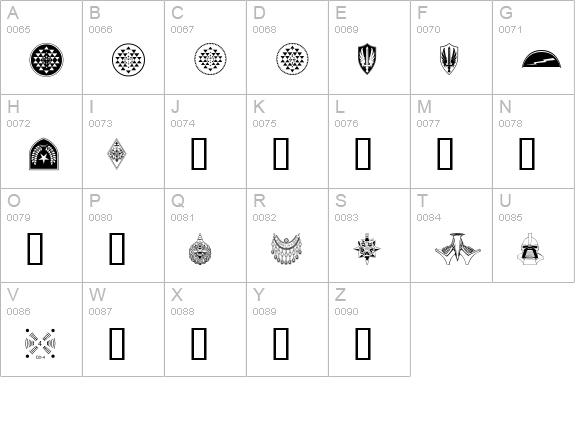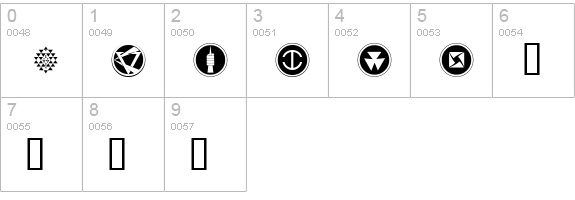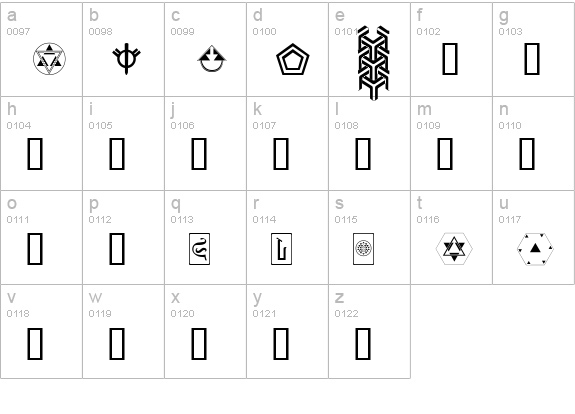
GalacticaBats Font Details
Introducing GalacticaBats, a mesmerizing and futuristic font that will transport you to the outer reaches of the galaxy! This font is truly out of this world with its sleek lines, sharp edges, and captivating design. Created with a blend of modern aesthetics and cosmic inspiration, GalacticaBats is the perfect choice for any project that aims to evoke a sense of wonder, adventure, and exploration. With its bold and commanding presence, GalacticaBats makes a striking statement in any design. Whether you're creating a logo for a space-themed brand, designing an otherworldly poster, or crafting a science fiction book cover, this font will undoubtedly capture the attention of your audience and leave a lasting impact. But that's not all – GalacticaBats is not only visually stunning, but it also offers the convenience of being freely available to download at FontsMarket.com. Yes, you read that right! This incredible font can be yours at absolutely no cost. Now you can bring the cosmic beauty of GalacticaBats into your projects without breaking the bank. So why wait? Embark on a typographic journey through the vastness of space with GalacticaBats. Download it today from FontsMarket.com and let your creativity soar to new heights. With GalacticaBats, the possibilities are limitless, just like the universe itself. Get ready to make your designs shine like distant stars in the night sky.